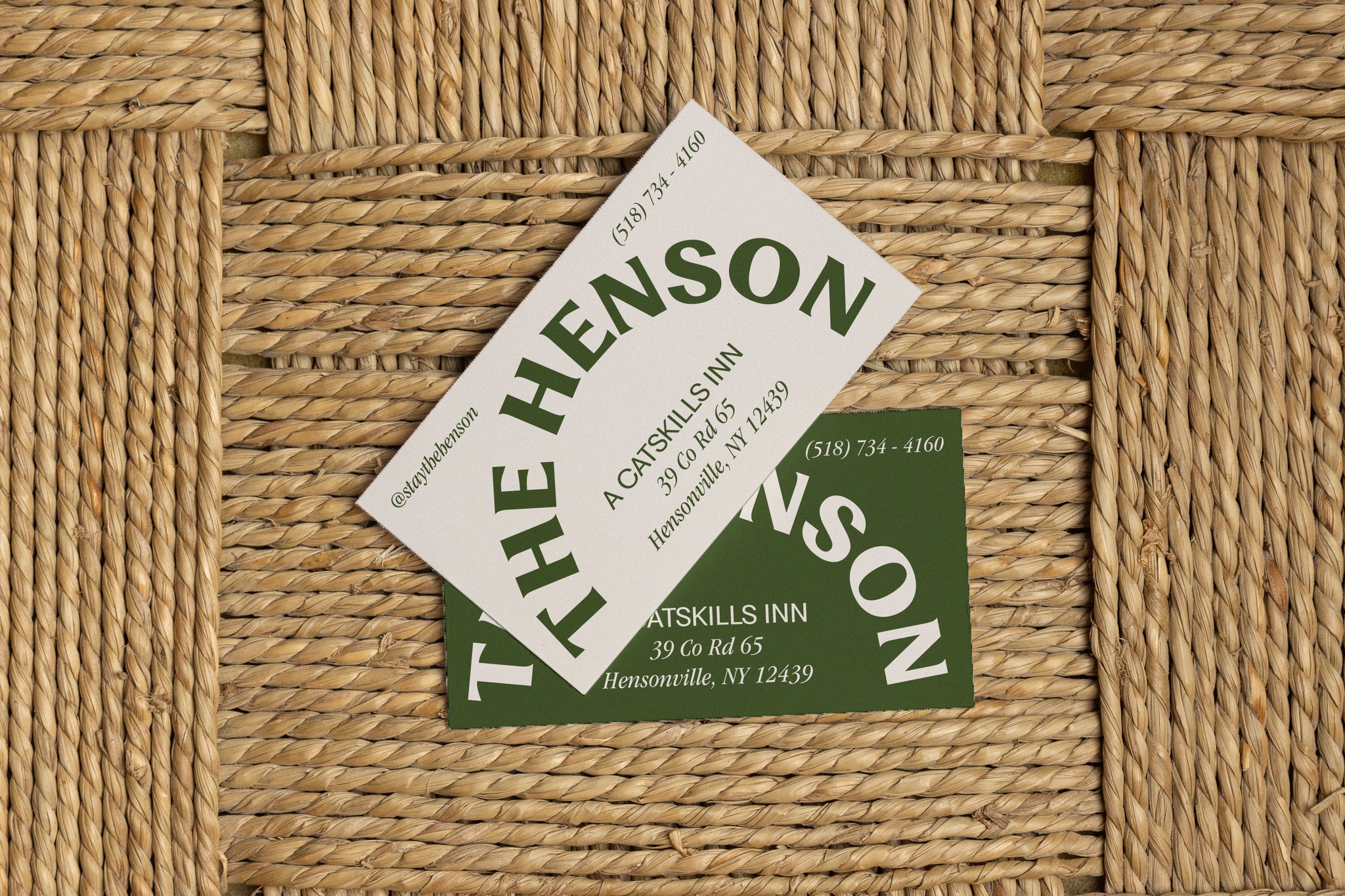
The Henson Hotel is a 16-room love letter to the Catskills penned by famed property restorers and husband-wife-duo Ely and Danielle Franko.
Originally constructed as a boarding house in the early 19th century, the Frankos breathed new life into the historic structure to make an endlessly elegant yet playfully nostalgic retreat that marries the traditions of the region with the understated glamour of the European Alps.
Joining the Frankos in the venture are acclaimed chefs Jeremiah Stone and Fabian von Hauske Valtierra of NYC’s Contra and Wildair. As long-time friends and collaborators of Jeremiah and Fabian, we worked with the foursome to create a brand identity for The Henson that reflected the hotel’s new direction while simultaneously capturing the magic of the mountains and being a sibling to their on-site restaurant Matilda.
There’s a rugged, almost frontiersman quality to the Catskills that informed the initial direction of the design. Nature isn’t overcome here, it’s something you build a relationship with. Leveraging the abundance of flora and fauna throughout the region we developed a system of illustrations and animations that reflect the natural surroundings while also having a vintage, almost Boy Scout-like playfulness.
The typography uses a classic typewriter-inspired font (ITC Garamond STD Book, Narrow Italic) that evokes vintage community cookbooks — the type your grandmother might have passed down through the generations. The overall brand is an enthusiastic embrace of the Catskills while offering a nostalgic and whimsical yet timeless aesthetic that embodies the warmth and hospitality of The Henson itself.